As we approach the end of the year and (gulp!) the first quarter of the 21st century, the type world continues to bring us lashings of design-related goodness. This month's releases span from deeply personal explorations to ambitious technical achievements; from grotesques that set out to challenge Helvetica's ubiquity to experimental systems born from collaborative workshops.
A clear thread running through November's typefaces is the dialogue between tradition and innovation. Several of the fonts on our list have historical precedents, in terms of British typographic heritage, mid-century modernism, or Art Nouveau flourishes. But importantly, none of them is settling for simple revival. Instead, they're harnessing history as a foundation, resulting in type families that feel simultaneously grounded and fresh.
So whether you're drawn to versatile text families with extensive language support, display faces with architectural presence or experimental systems that challenge conventional authorship, read on.
1. Die Grotesk by Kris Sowersby
Die Grotesk aims directly at Helvetica's overwhelming cultural presence, acknowledging both reverence and resentment towards a typeface so ubiquitous it feels inevitable. As Klim Foundry's first retail variable font, it's rooted in the study of original metal cuts and modernist rigour, and designed for perfect typographic texture across all sizes.
The variable axes enable seamless, precise control of weight and letter spacing, whilst static styles maintain their integrity at every size. This technical sophistication addresses contemporary practice's demands for flexibility and consistency, offering designers granular control over typographic expression without sacrificing coherence. Rather than dismissing Helvetica's power or embracing it uncritically, this alternative offers fresh air that breathes new life into the grotesque tradition.
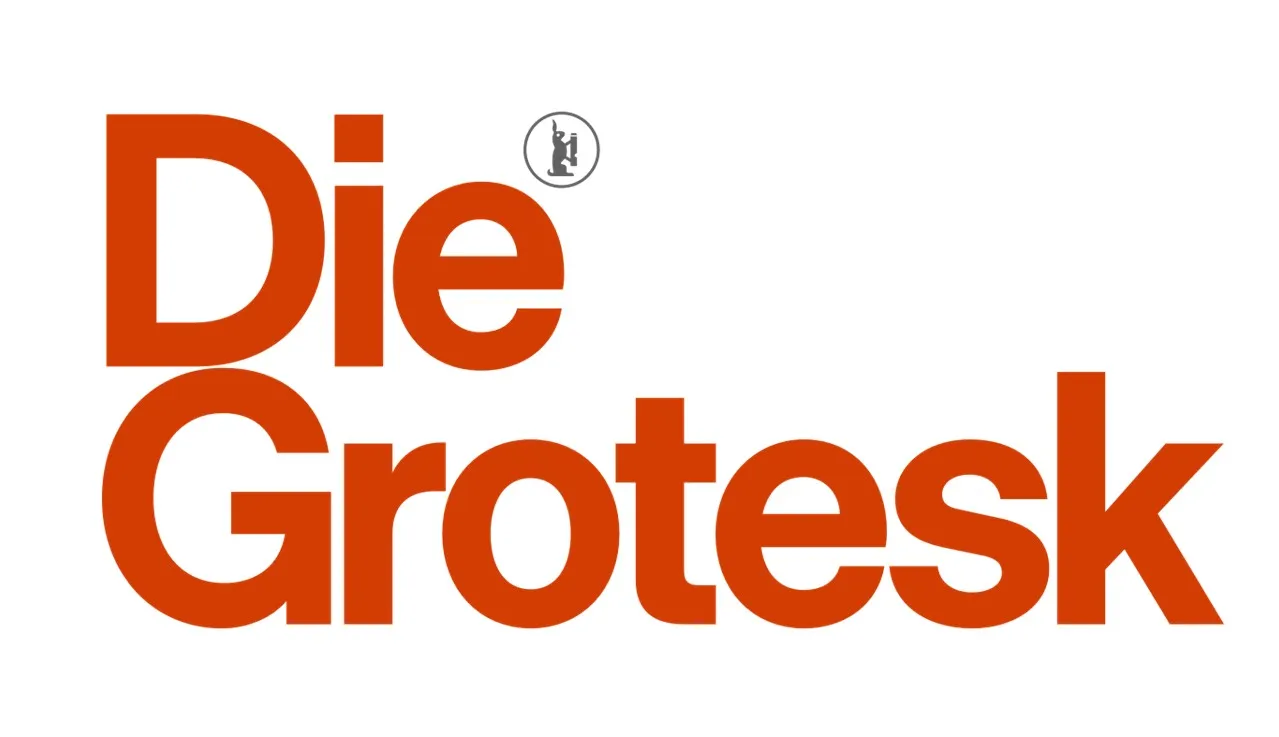
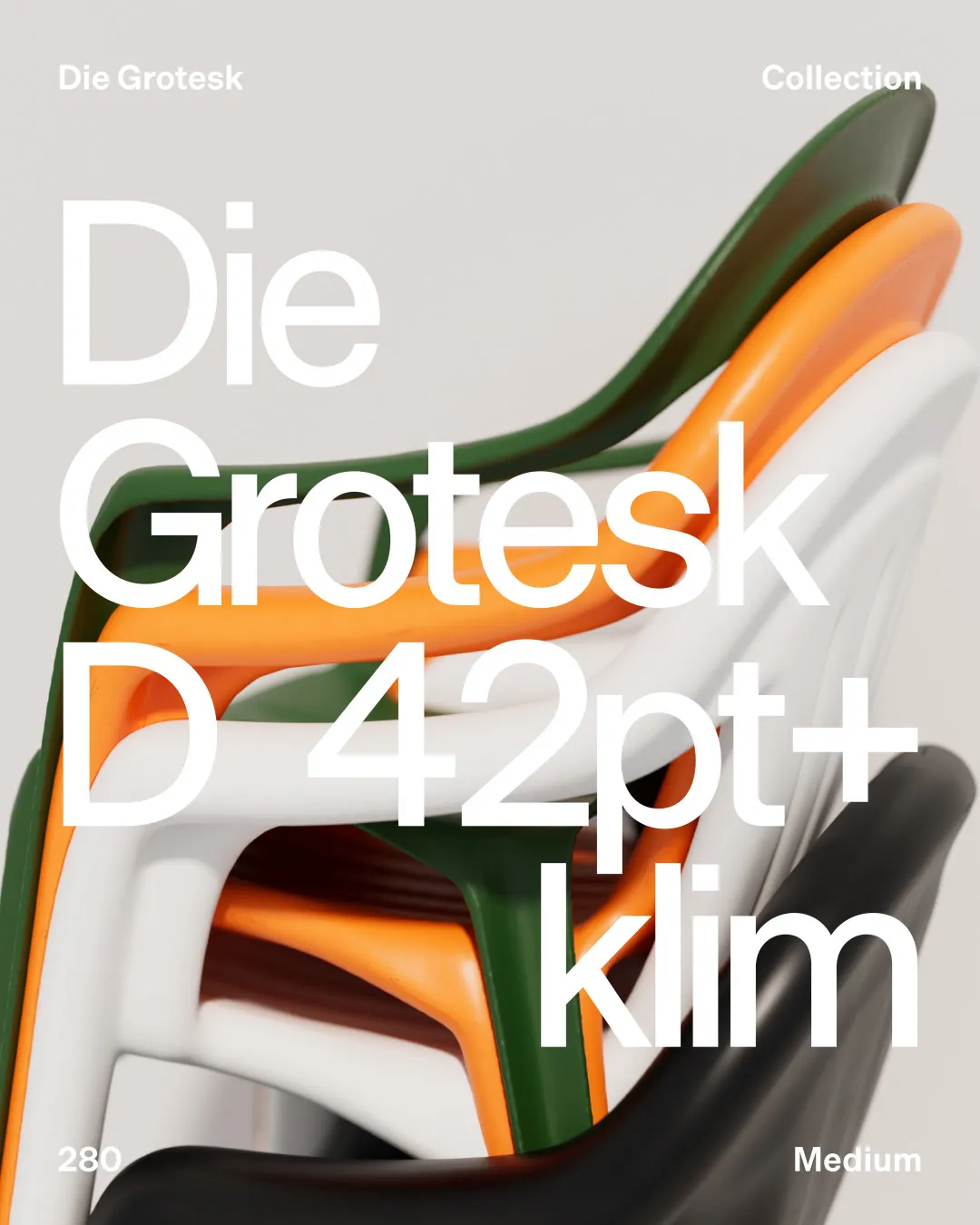
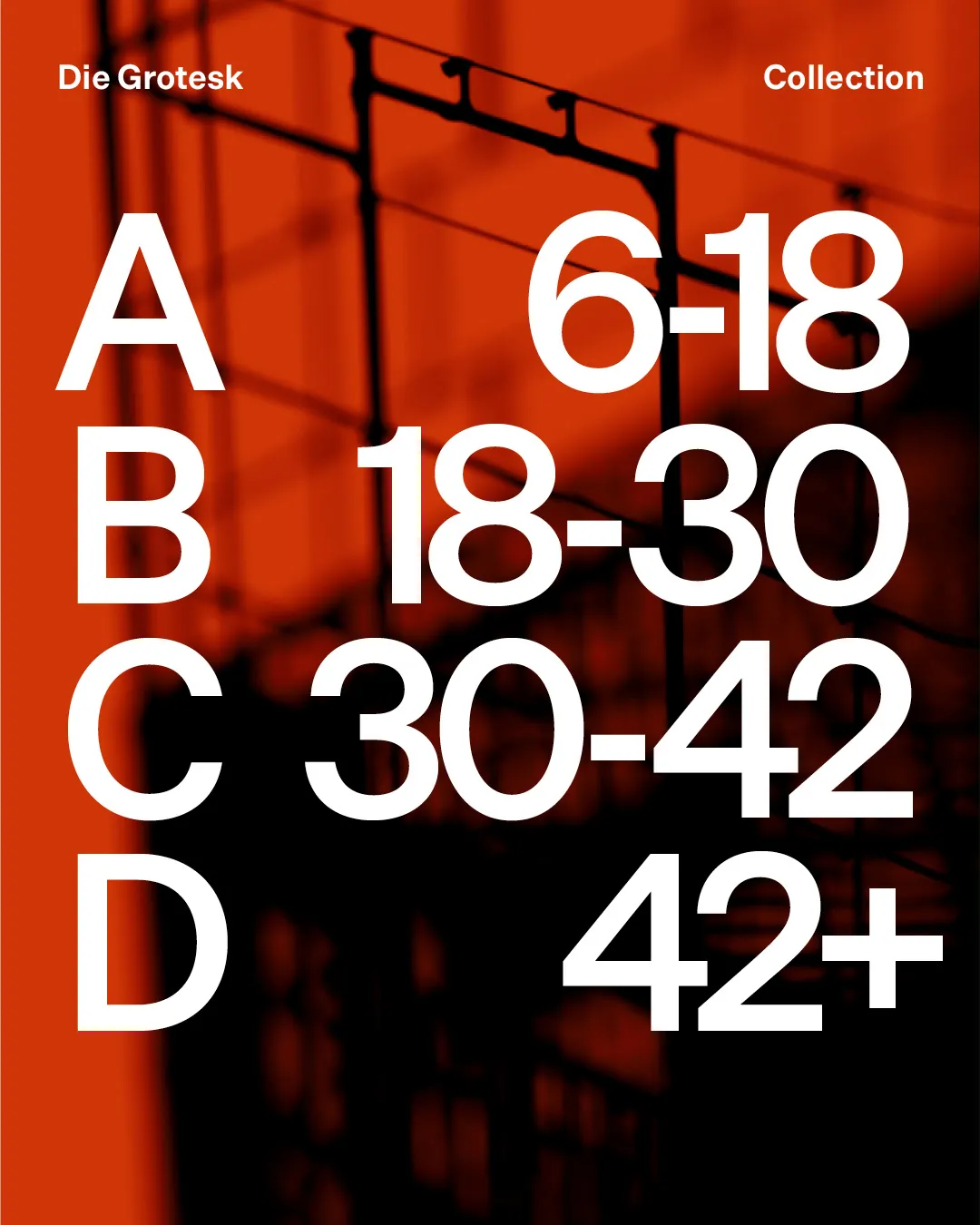
2. Marblis by Julien Fincker
Julien Fincker's Marblis also presents itself as a modern alternative to Helvetica's omnipresence, offering a personal interpretation of the classic grotesque. With clear, neutral forms that convey stability and reliability, this isn't just another neo-grotesque; it's a thoughtfully developed system built for maximum functionality.
What distinguishes Marblis is its balance between neutrality and character. Whilst maintaining the solid, reliable presence expected from grotesques, it introduces a subtle personality that prevents the typeface from disappearing into background ubiquity. The result ensures content remains the focus whilst providing designers with a dependable, precise tool that performs consistently across contexts.
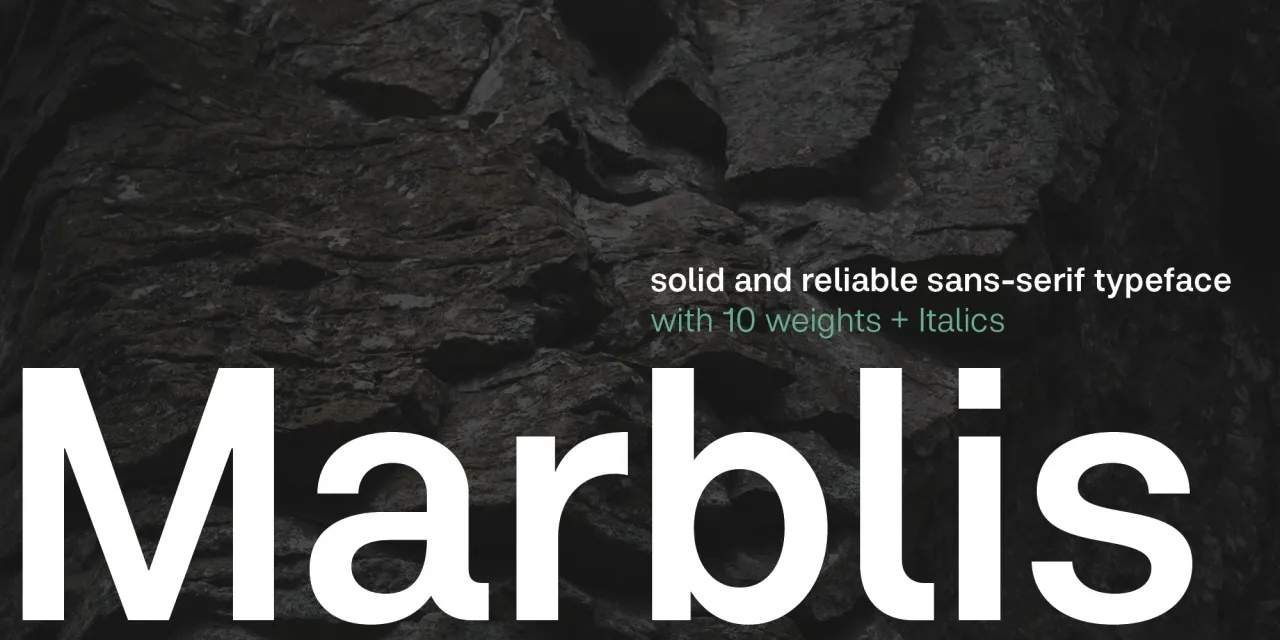
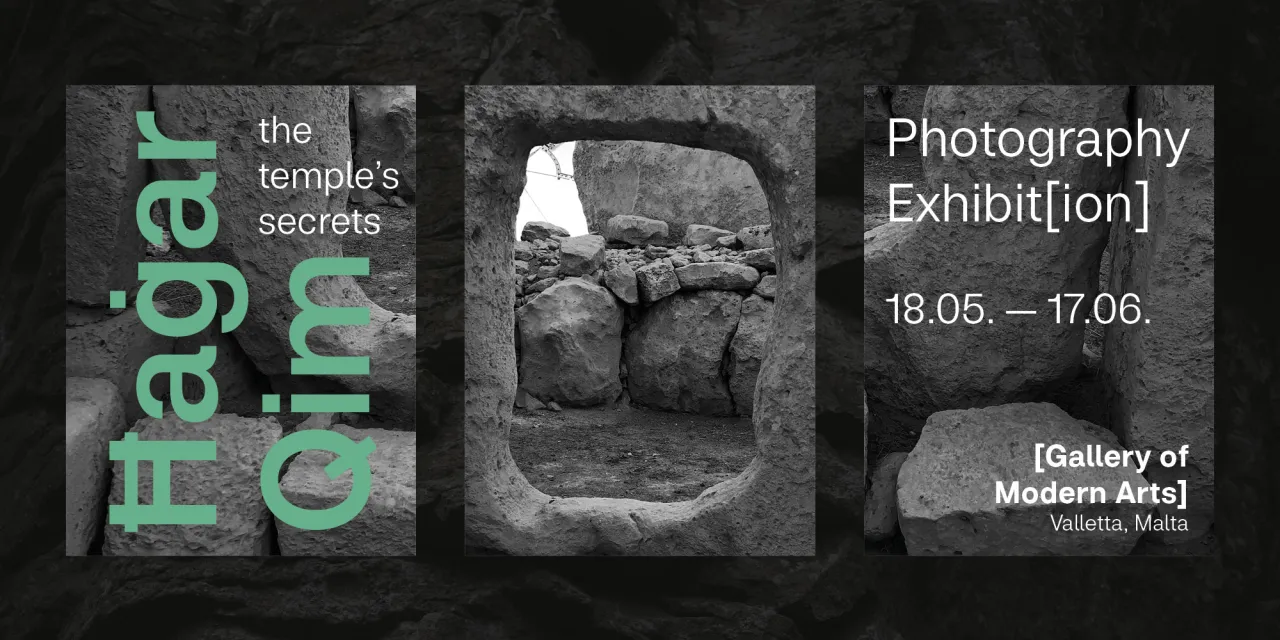
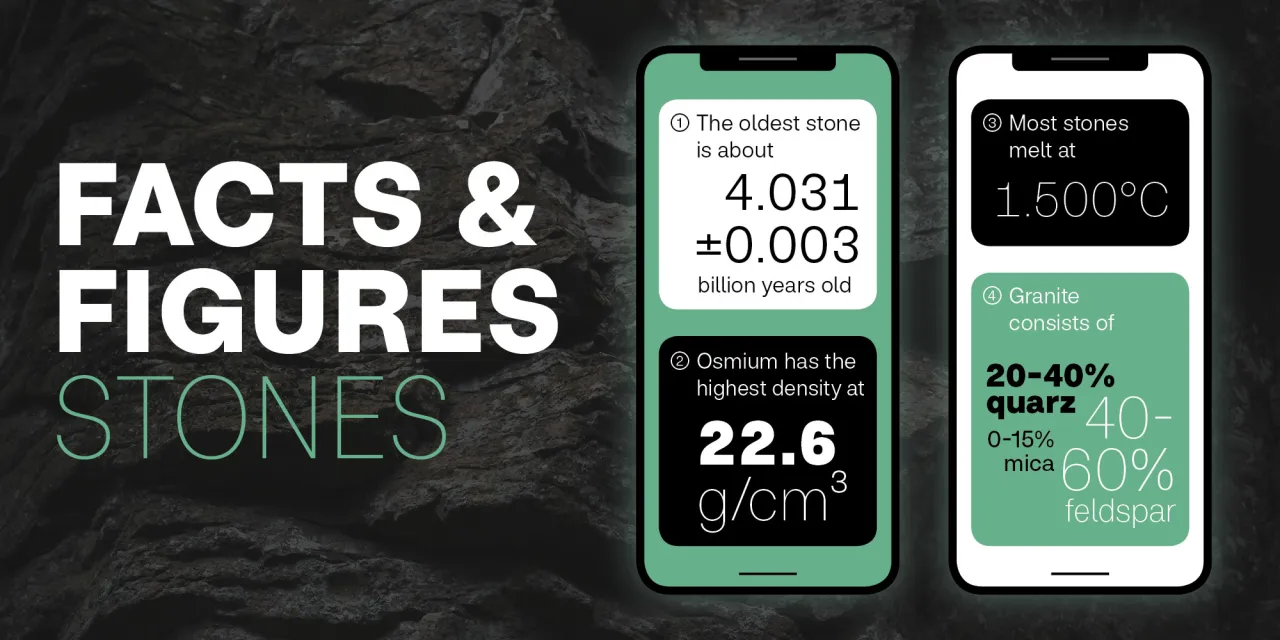
3. Edgar by Tobias Frere-Jones and Nina Stössinger
Frere-Jones Type's Edgar marks the tenth anniversary of Mallory's release, with a serif sibling that's been gestating for a decade. Designed primarily by Tobias Frere-Jones with significant contributions from Nina Stössinger, particularly on italics, Edgar is an oldstyle text family exploring the intertwining of personal and public histories.
Named after Frere-Jones' great-grandfather Edgar Wallace, a prolific crime writer, the typeface draws on British typographic tradition through the work of William Caslon and Alexander Phemister. This unlikely combination of sources separated by nearly 150 years creates a productive tension: letterforms that individually may not be perfectly balanced but knit together into words with compelling rhythm.
Edgar Wallace's conversational, spirited writing style (which was famously dictated aloud rather than laboriously written) influenced his approach to texture and pacing. This new typeface aims to replicate that easy rhythm through shapes and space, creating patterns suitable for extended reading whilst maintaining a character that prevents disappearing into generic text. With development assistance from Hrvoje Živčić on character sets and language coverage, Edgar demonstrates how collaborative, iterative design can produce work that's both historically informed and thoroughly contemporary.
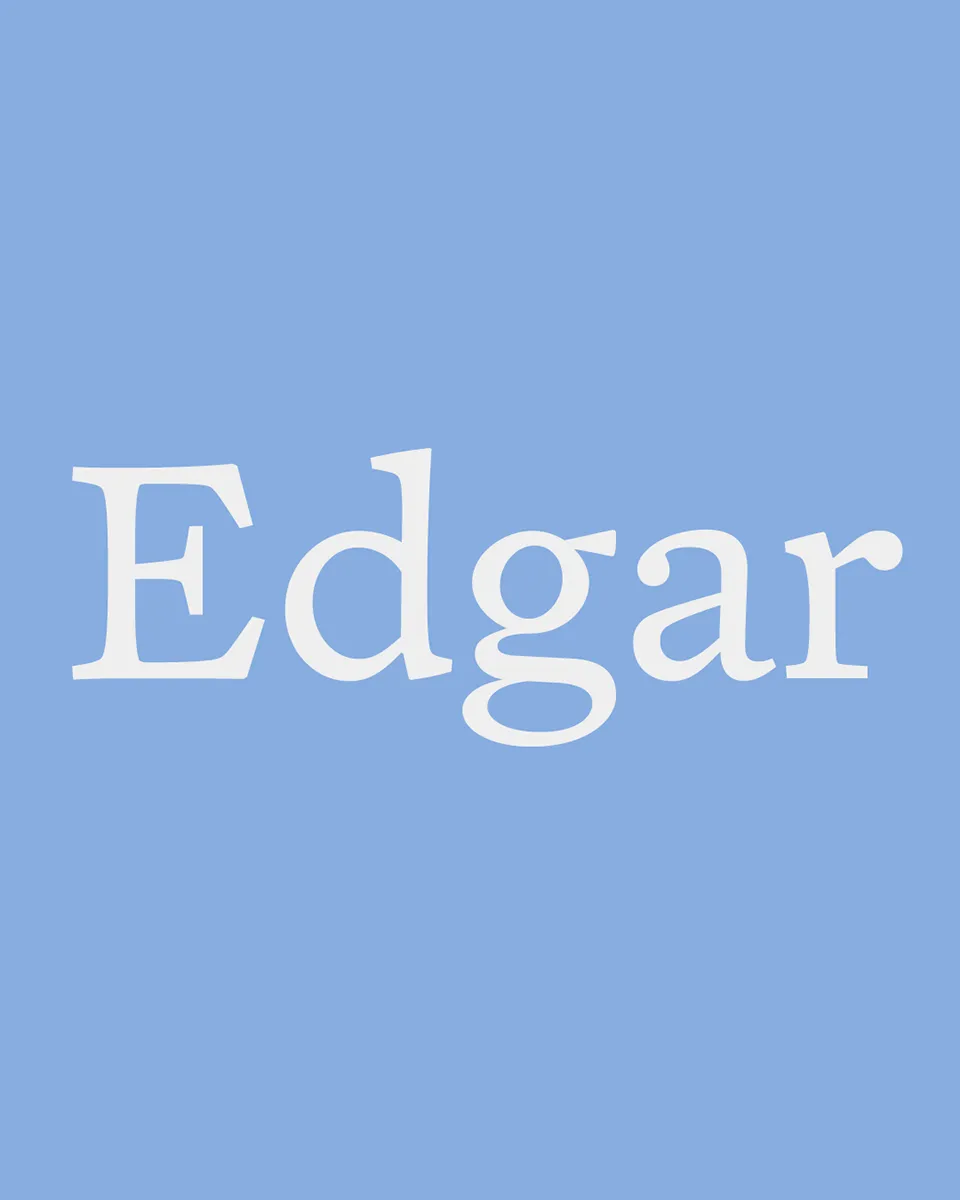
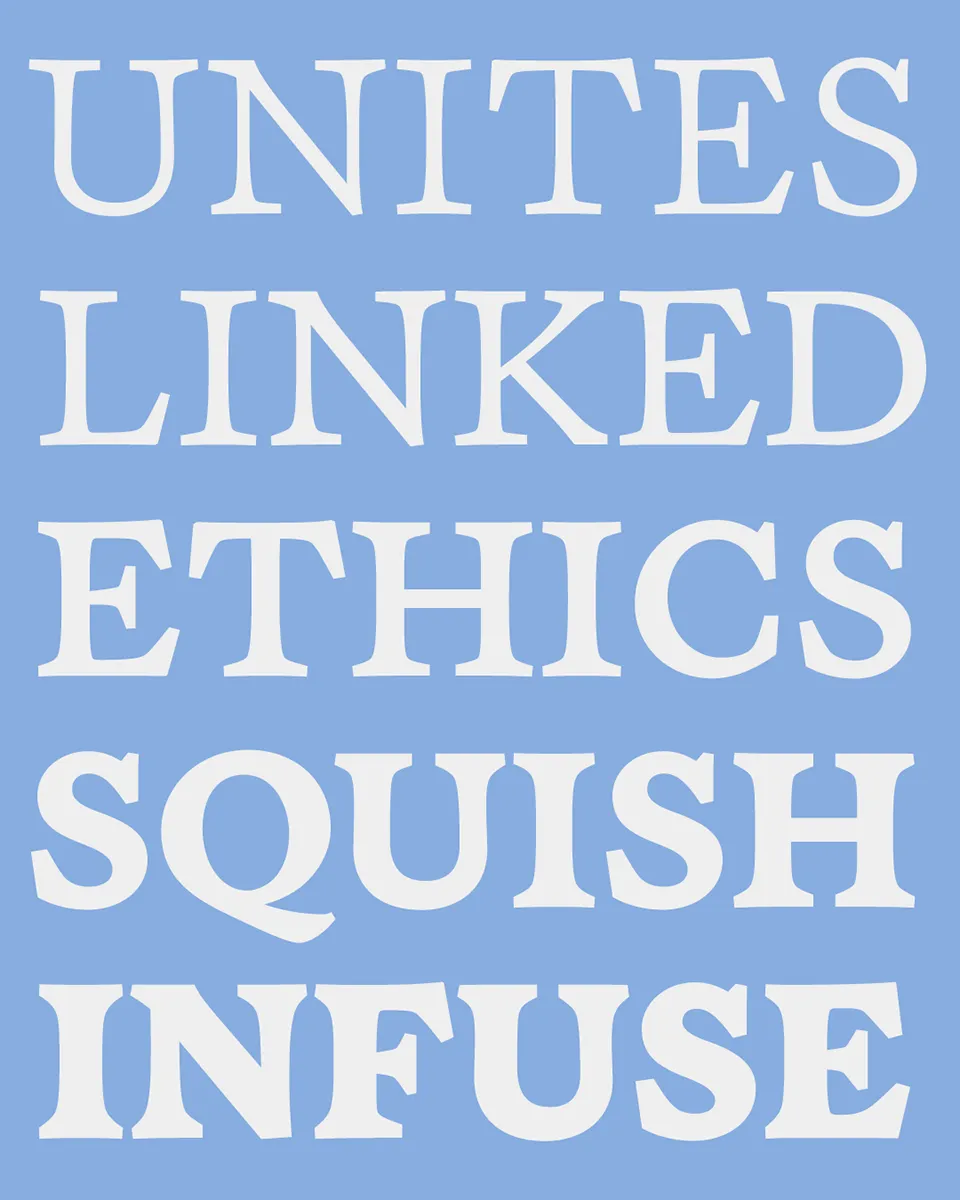
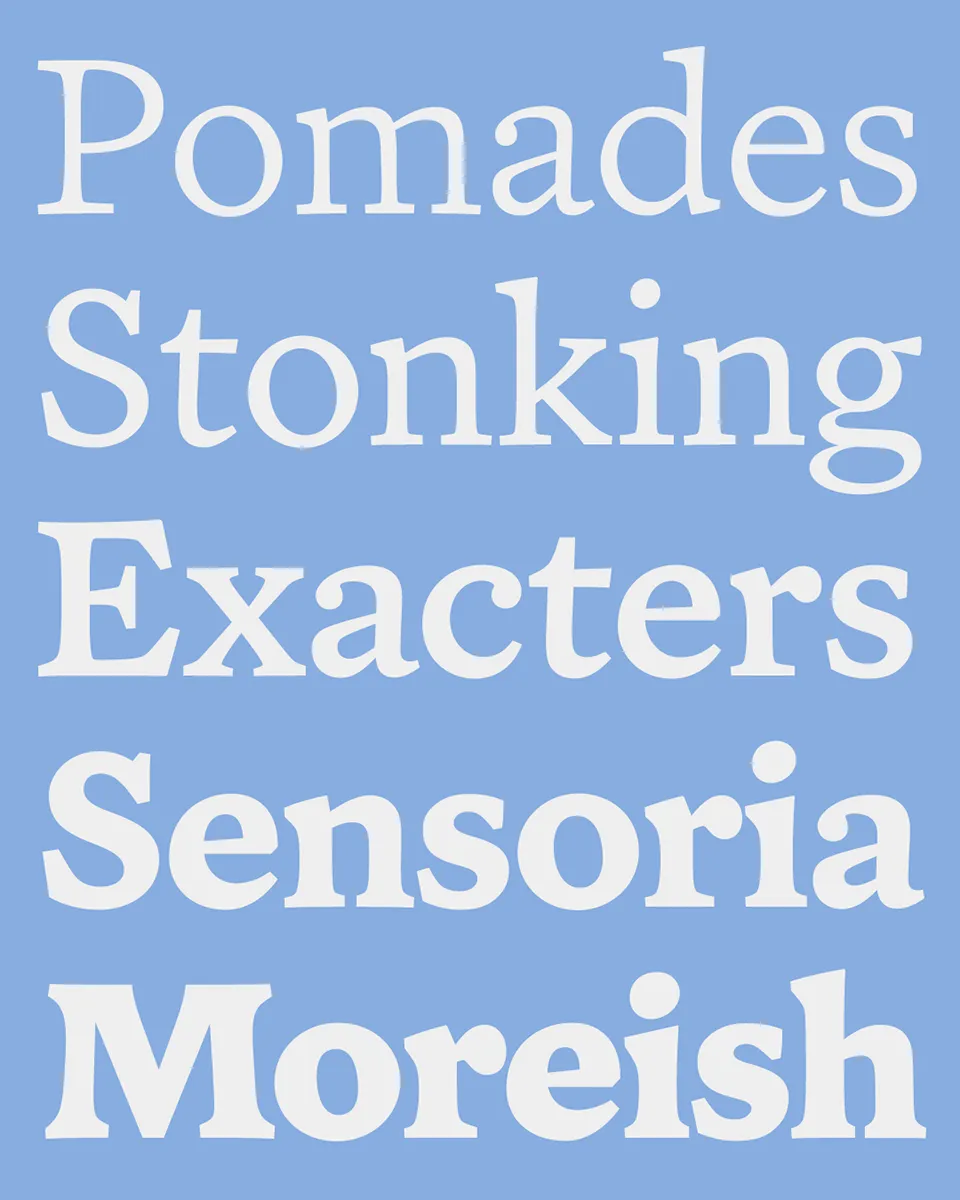
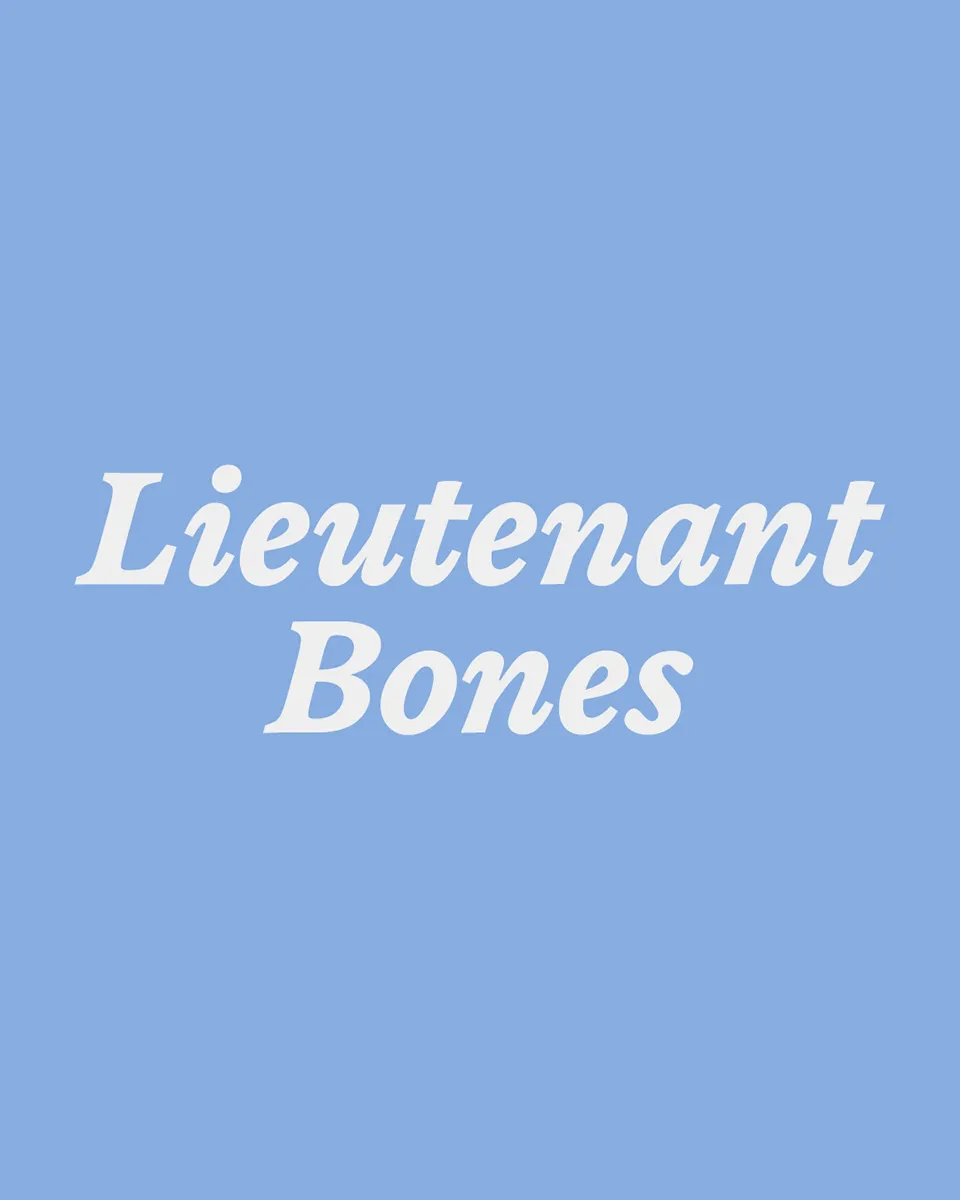
4. Montreuil by Julien Priez and James Edmondson
The product of a transatlantic collaboration between Julien Priez (aka Boogy Paper) and James Edmondson's OH no Type Co., Montreuil is a comprehensive two-part family named after the French city where the former lives.
Montreuil Play emerged from Julien's 15-year-old sketches exploring kit-based letterforms that could join together for interesting variations and abstract graphics. Rather than creating another conventional sans-serif, he decided to develop an extensive system of modular alternates. The aim is to encourage designers to experiment with shapes and construct custom compositions, empowering creativity rather than simply setting type.
Recently honoured with a Certificate of Excellence from TDC 2025, Ramboia's character emerges through its rejection of angular construction in favour of continuous curvature. This lends the typeface an organic, approachable quality whilst maintaining the sophistication expected from oldstyle traditions. This balance makes it particularly suited for projects requiring warmth and personality without sacrificing elegance or readability.